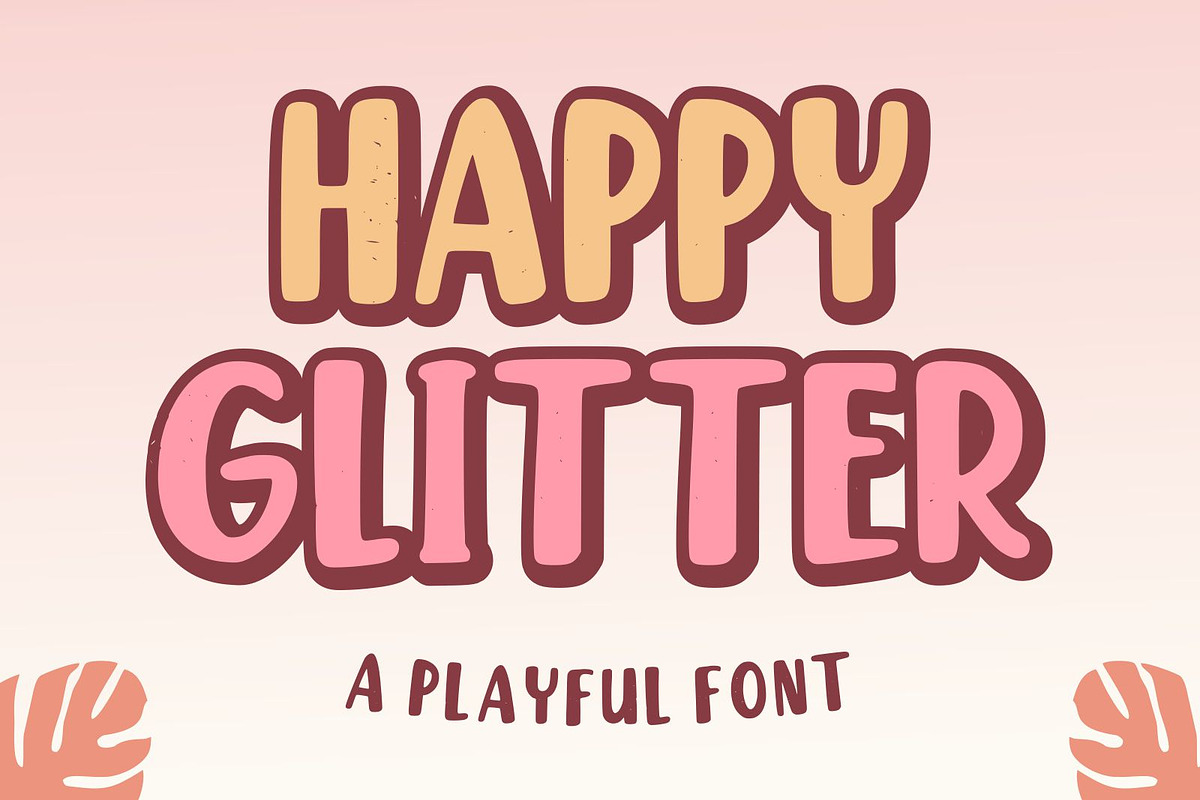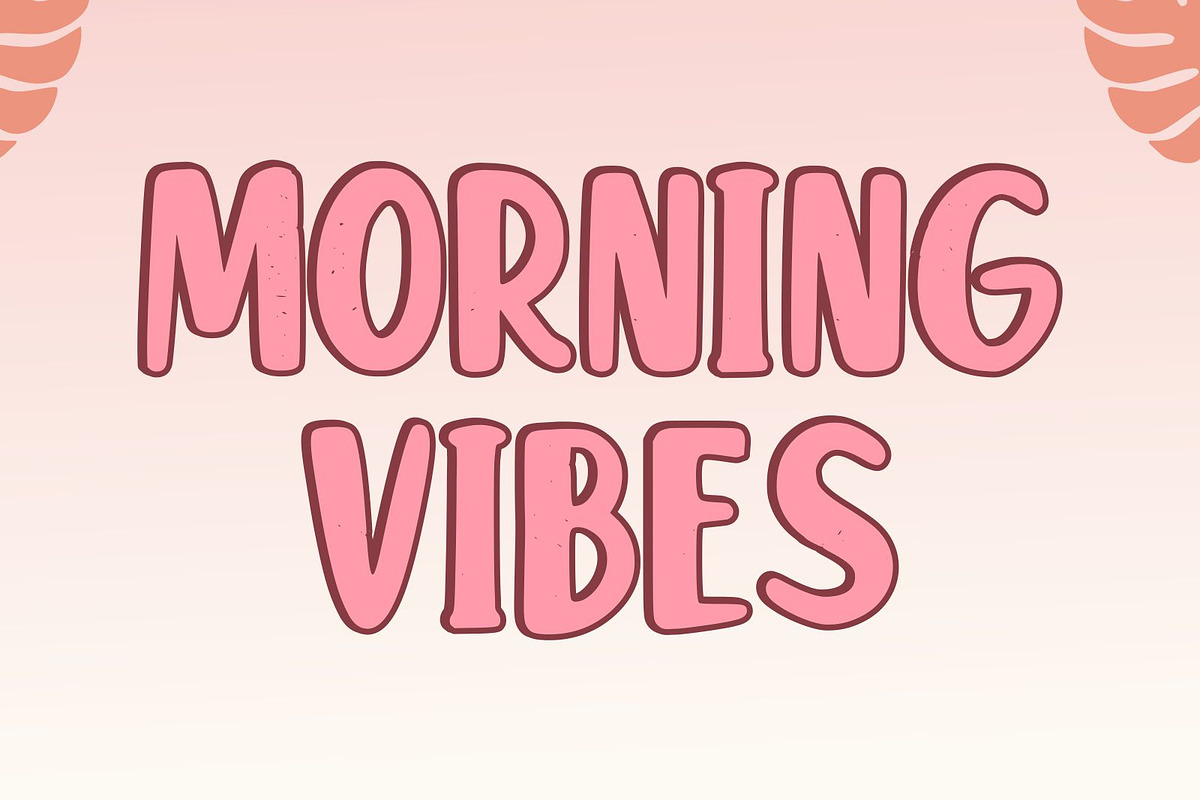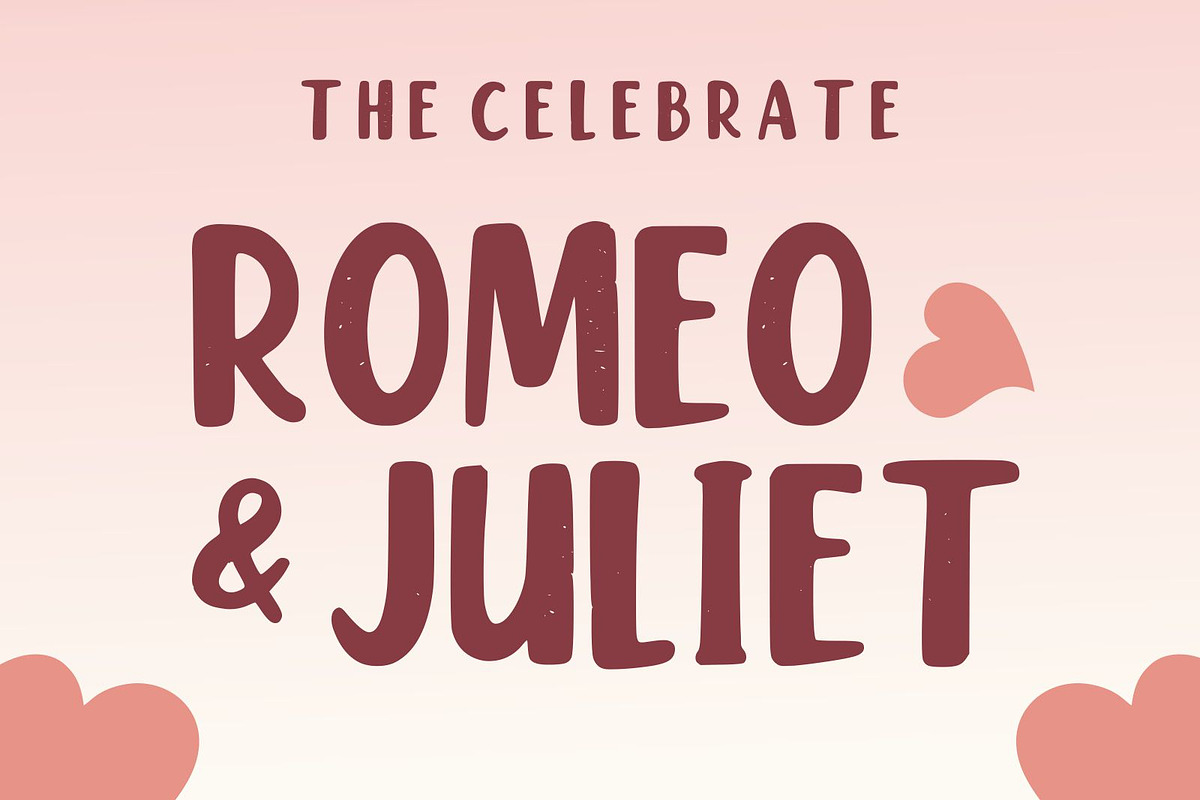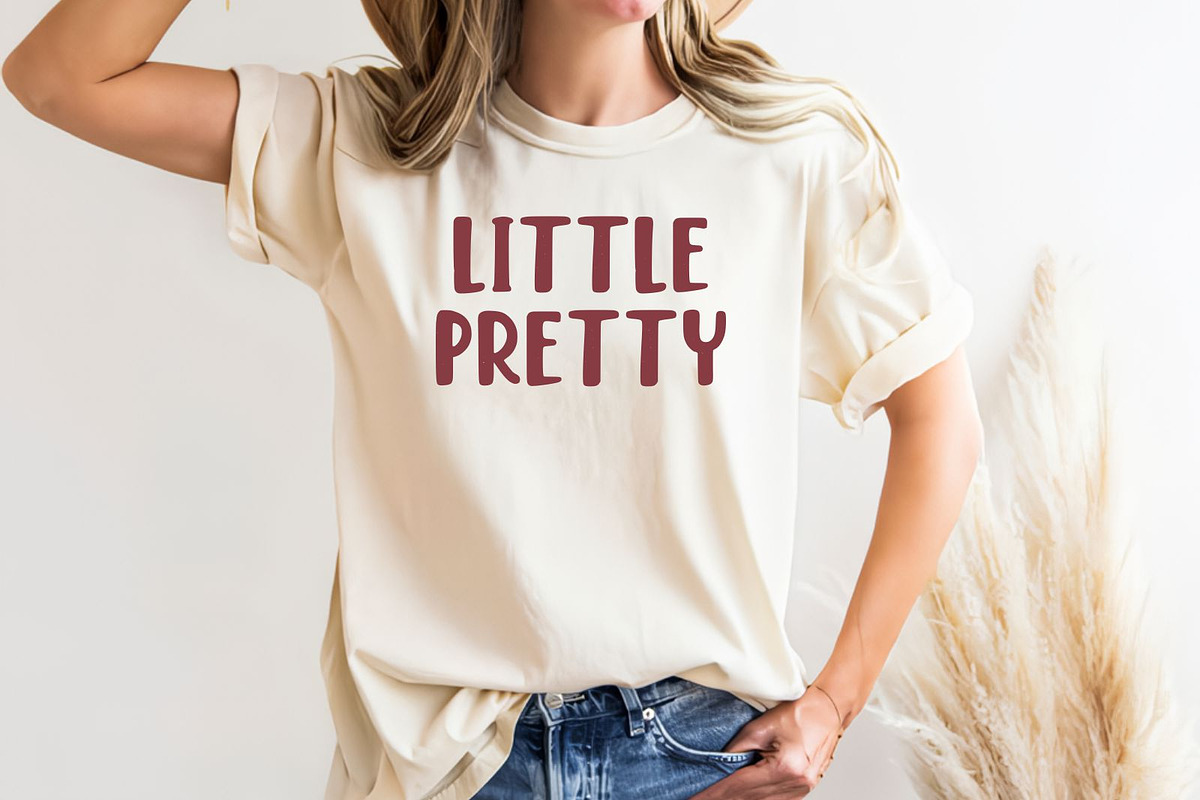
Happy Glitter
Happy Glitter is a fun and cute display font, inspired by retro bold typography. This font is perfect for a design that requires a playful and fun accent. Sunday Bright is suitable for book covers, posters, packaging, merchandise, logotype, and much more.